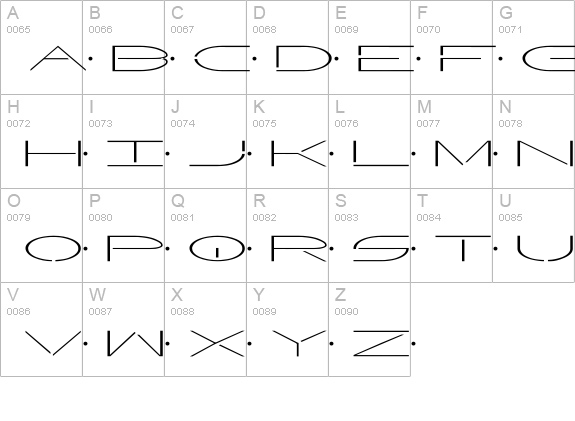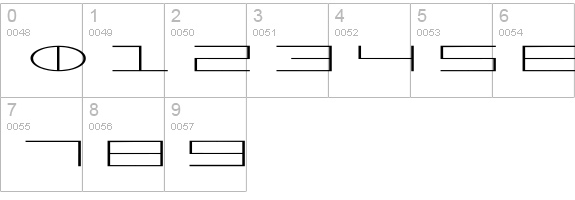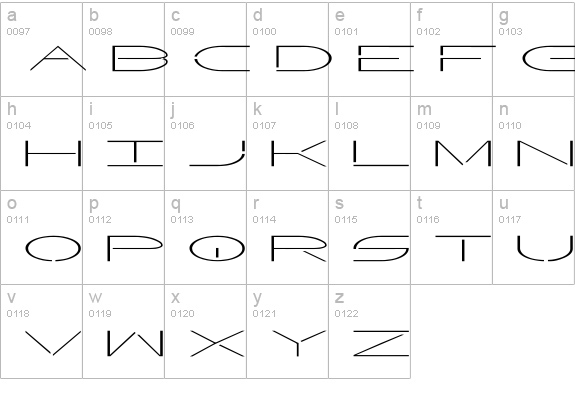
Factor Font Details
Factor font is a visually stunning typeface that effortlessly combines elegance with modernity. Designed with meticulous attention to detail, this font is perfect for projects that require a touch of sophistication and a contemporary edge. Its clean lines and sleek curves make it a versatile choice for various design applications. One of the most remarkable aspects of Factor font is that it is available for free. Yes, you read that right! This remarkable font can be freely downloaded at FontsMarket.com, providing designers and creatives with an incredible opportunity to enhance their work without breaking the bank. With Factor font, you can elevate your designs to new heights. Whether you are working on a branding project, a website design, a poster, or any other creative endeavor, this font will undoubtedly make a lasting impression. Its wide range of weights and styles allows you to experiment and find the perfect fit for your project, ensuring a unique and captivating result. Factor font is not just visually appealing, but it also boasts excellent legibility, making it a practical choice for both print and digital applications. Its carefully crafted letterforms ensure clear and easy-to-read text, whether it is used in headlines, body text, or captions. So why wait? Discover the beauty and versatility of Factor font today. Download it for free at FontsMarket.com and unlock a world of possibilities for your designs. With its exquisite design and unrestricted availability, this font is a true gem for designers and creatives alike. Don't miss out on the opportunity to enhance your work with this exceptional typeface.